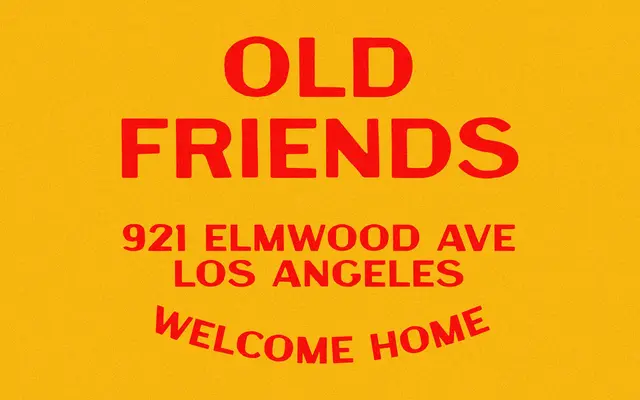
A single-weight geometric sans with a restrained, workaday character aimed at branding and everyday commercial use.
Offered as a single Regular weight, Manna covers basic Latin with a limited set of accented characters across 150 glyphs. The design prioritises inoffensive clarity over personality, making it a workable choice for logos, packaging and web use where neutrality is the brief. At $25 with a broad flat-rate commercial licence, it is positioned as a low-friction option for independent designers and small studios.
Described as clean and timeless, Manna sits in the geometric sans tradition with a restrained, unfussy character suited to everyday commercial use.